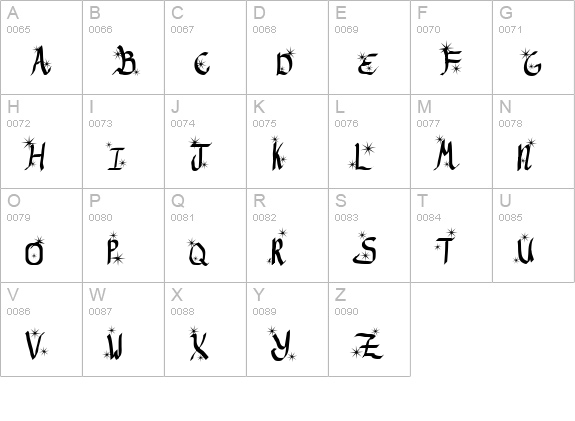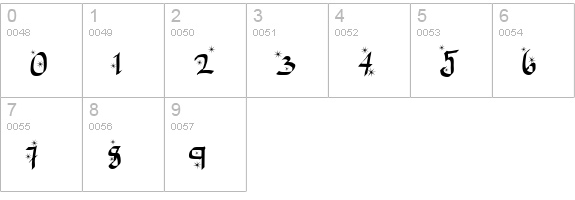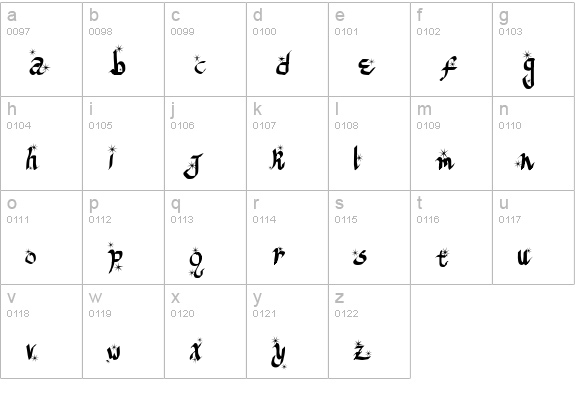
ReGifter Stars Font Details
Introducing ReGifter Stars, a captivating and versatile font that is sure to add a touch of elegance to any design project. With its intricate and beautifully crafted letterforms, ReGifter Stars is perfect for creating eye-catching headlines, stylish logos, and stunning invitations. This font features a unique combination of curves and sharp angles, giving it a modern yet timeless appeal. Its clean and sleek aesthetic ensures legibility across various sizes and mediums, making it ideal for both digital and print applications. But what truly sets ReGifter Stars apart is its accessibility - it is completely free! That's right, this exceptional font can be freely downloaded at FontsMarket.com. Whether you're a professional designer looking to expand your typeface collection or a creative individual searching for the perfect font for your personal projects, ReGifter Stars is here to meet your needs. With its extensive character set, including uppercase and lowercase letters, numbers, punctuation marks, and special symbols, ReGifter Stars offers endless creative possibilities. The font's versatility allows it to seamlessly adapt to a wide range of design styles, from elegant and sophisticated to playful and whimsical. ReGifter Stars is not only visually stunning but also incredibly easy to use. Its smooth and consistent letter spacing ensures a seamless and effortless design process, allowing you to focus on bringing your creative vision to life. So don't miss out on this incredible opportunity to enhance your design projects with ReGifter Stars. Download this fantastic font for free at FontsMarket.com and experience the endless possibilities it offers. Unleash your creativity and let ReGifter Stars make your designs shine brighter than ever before.